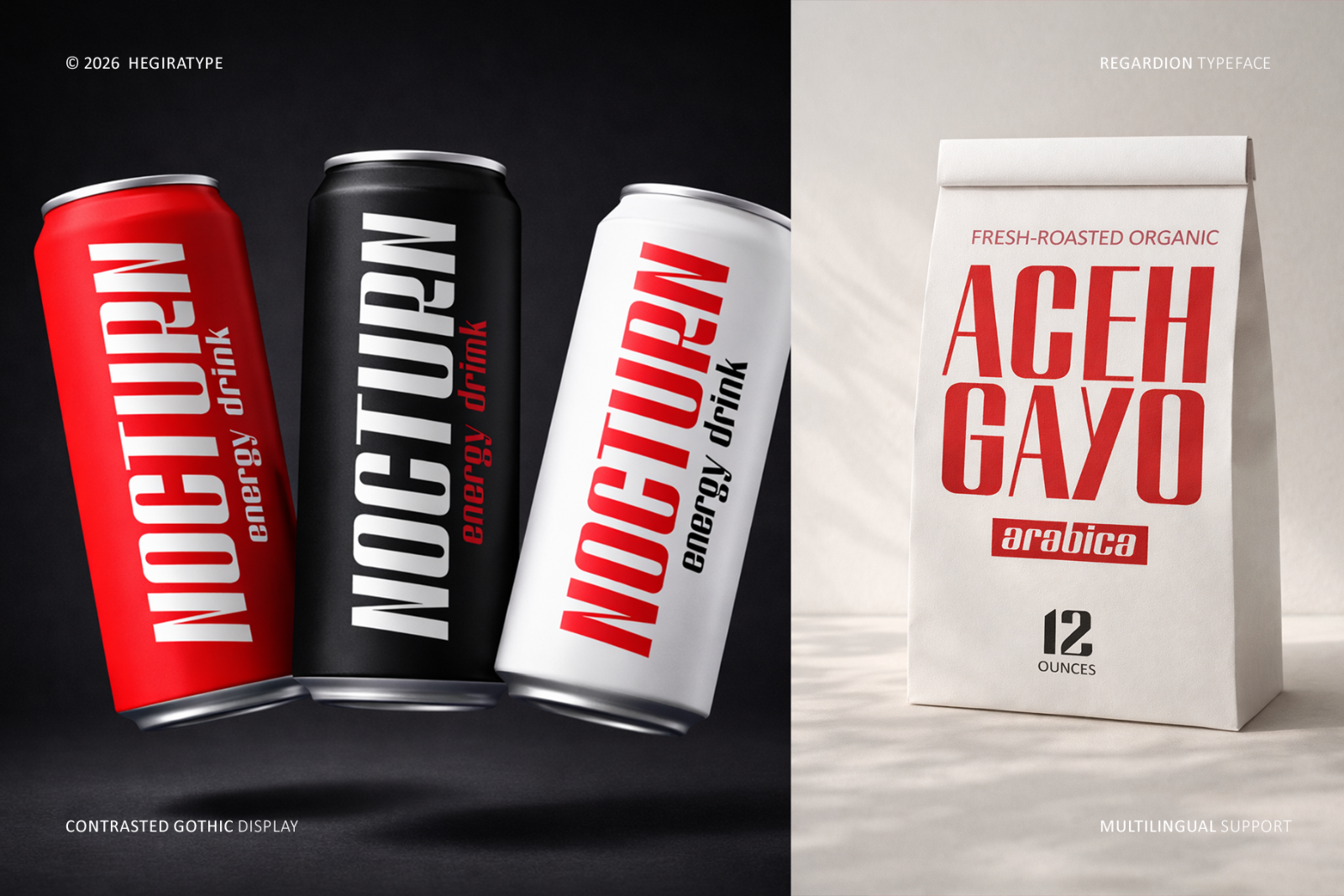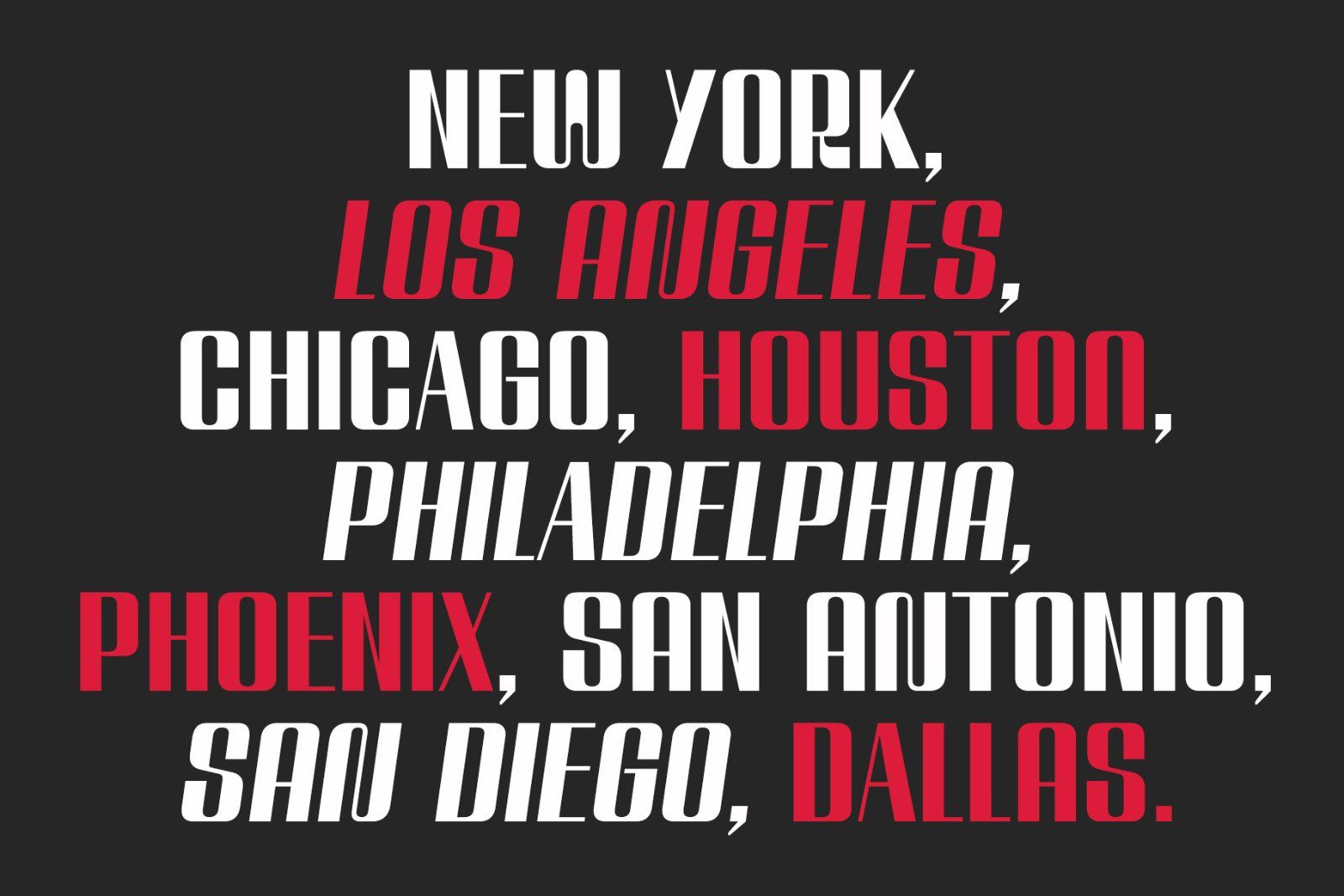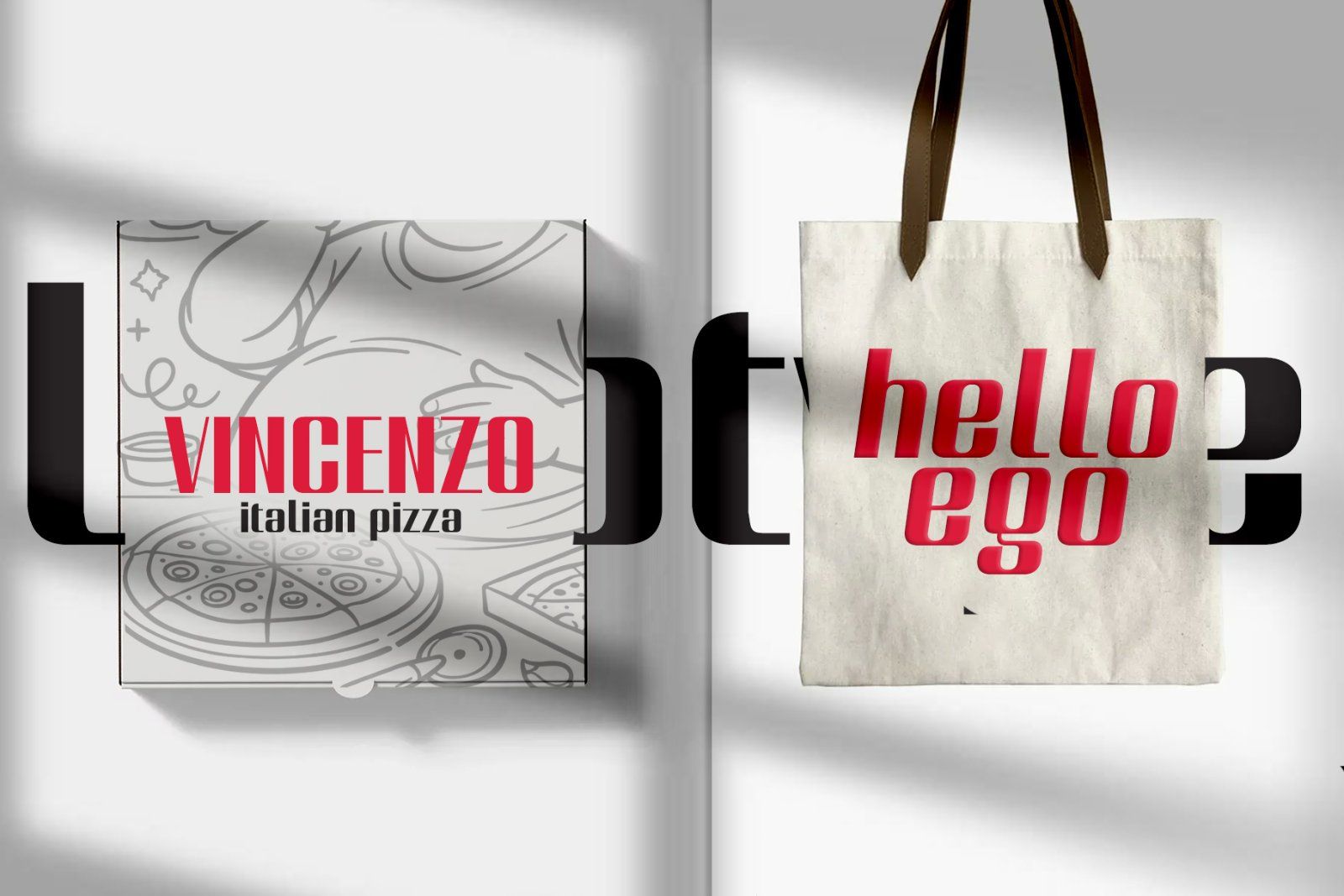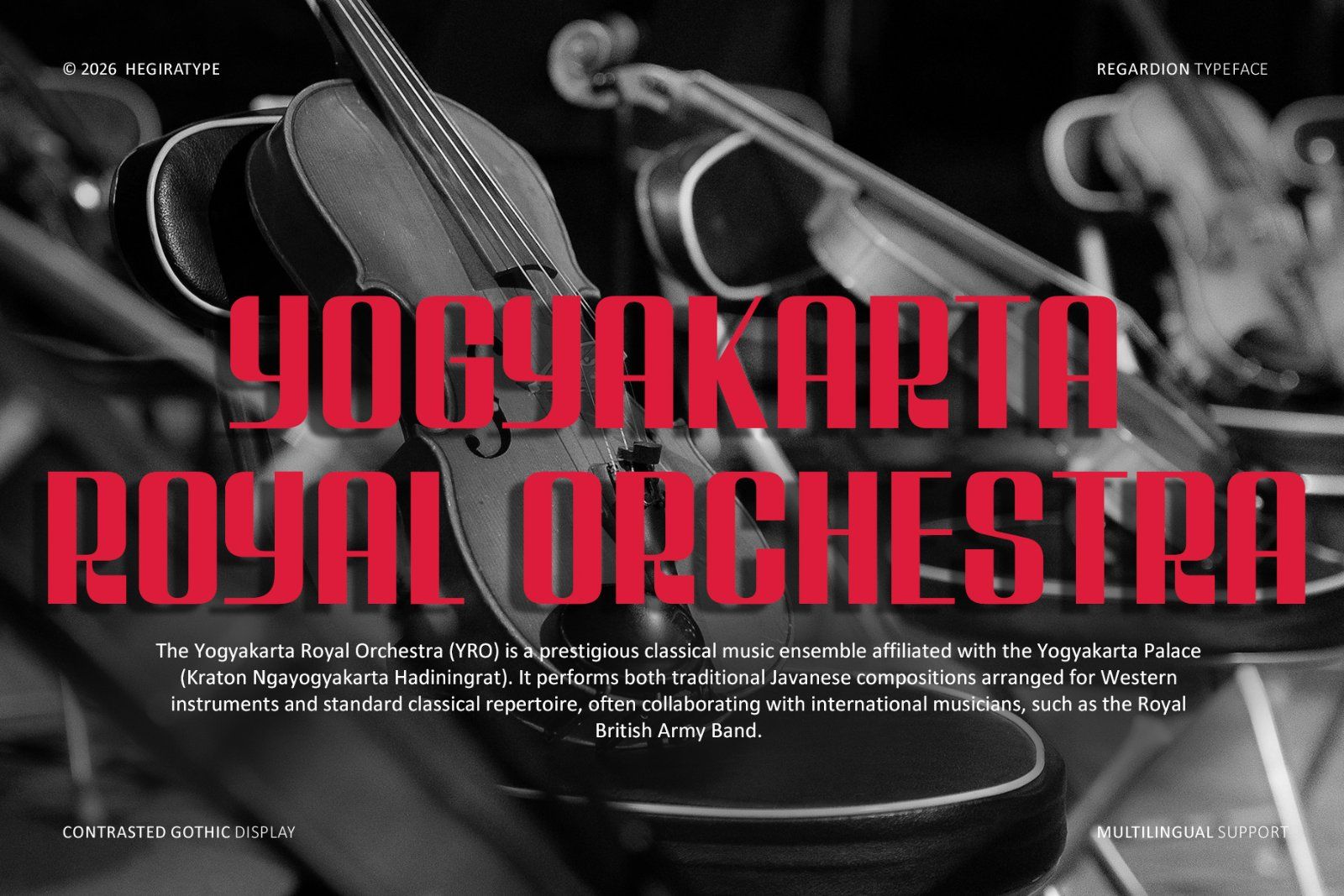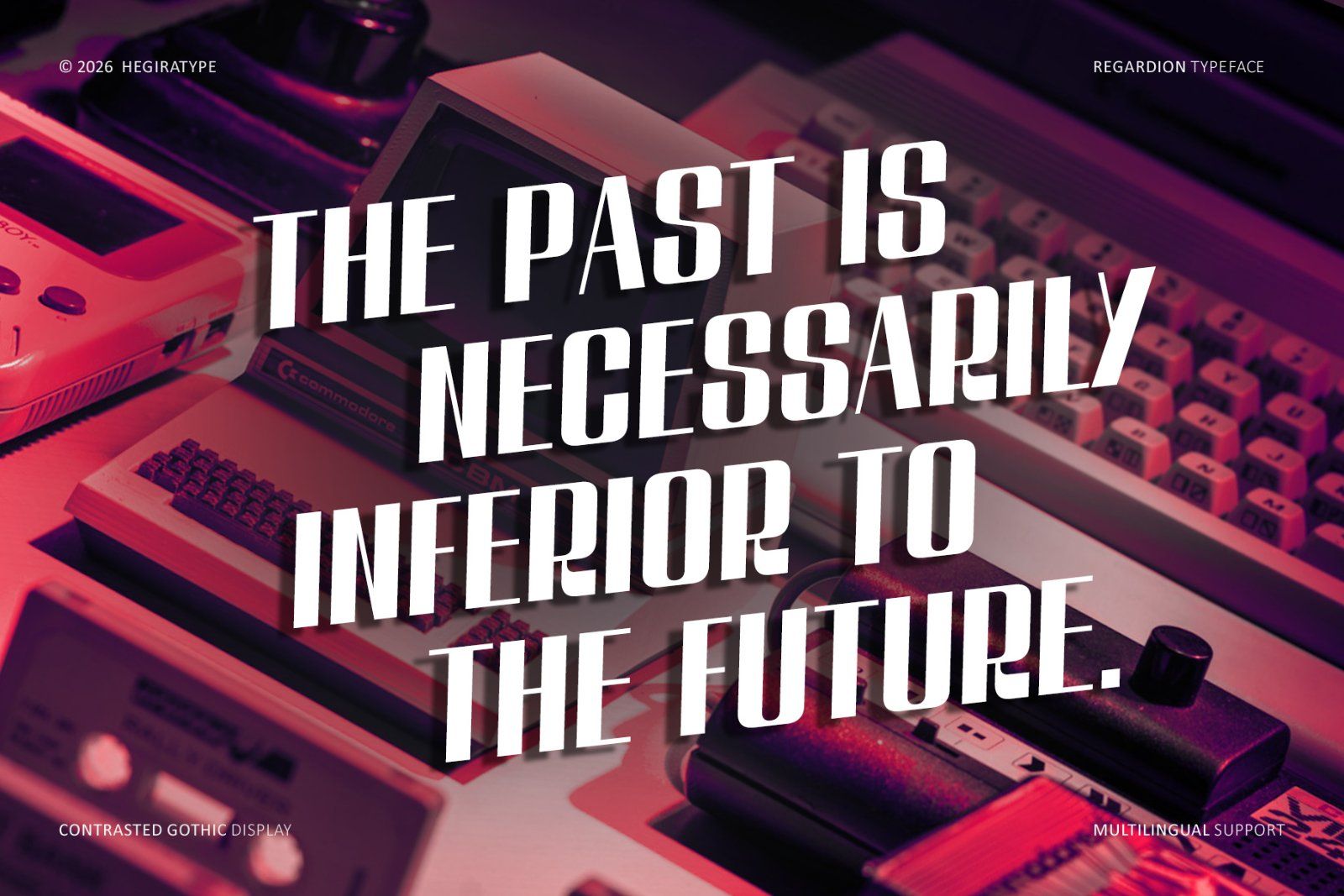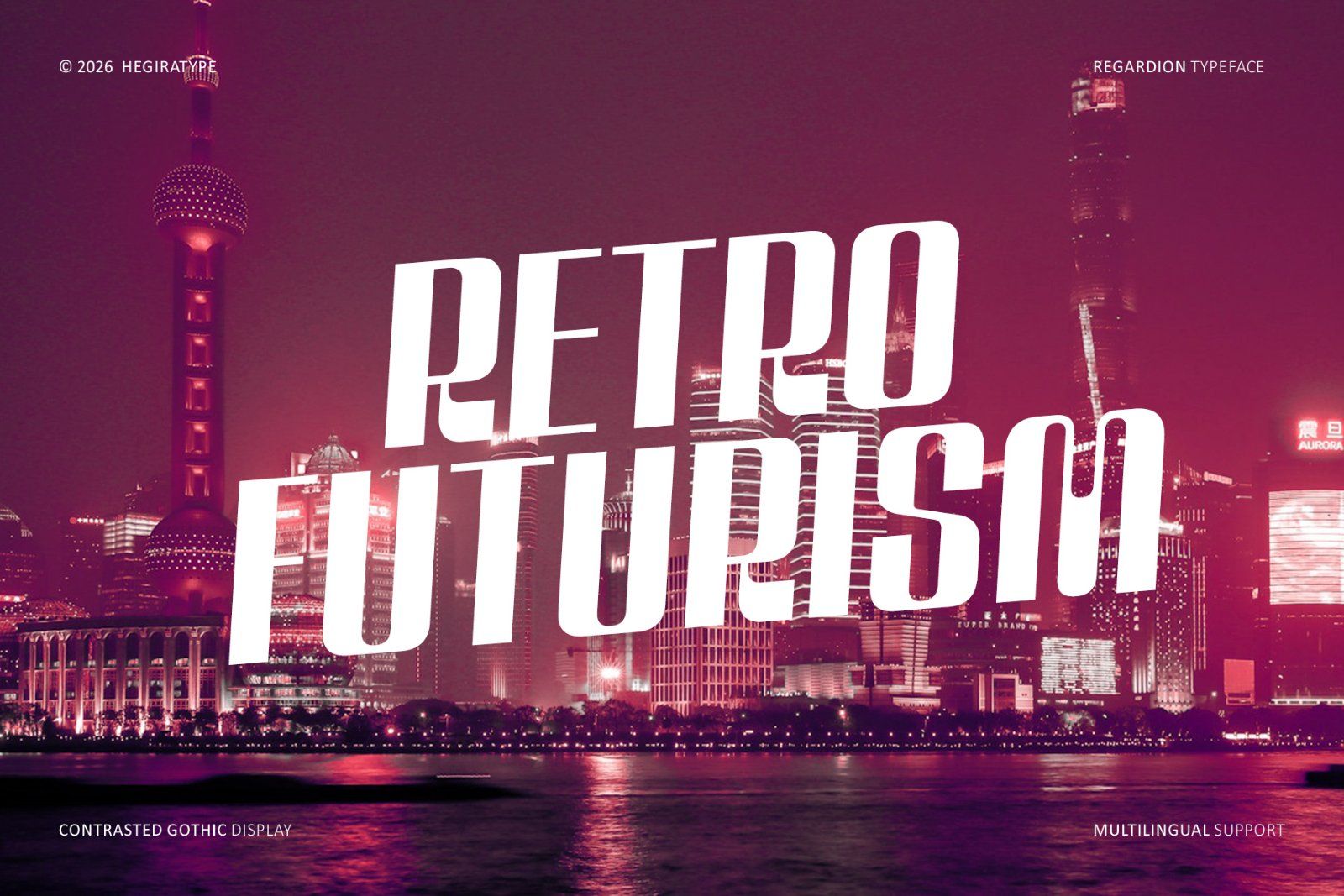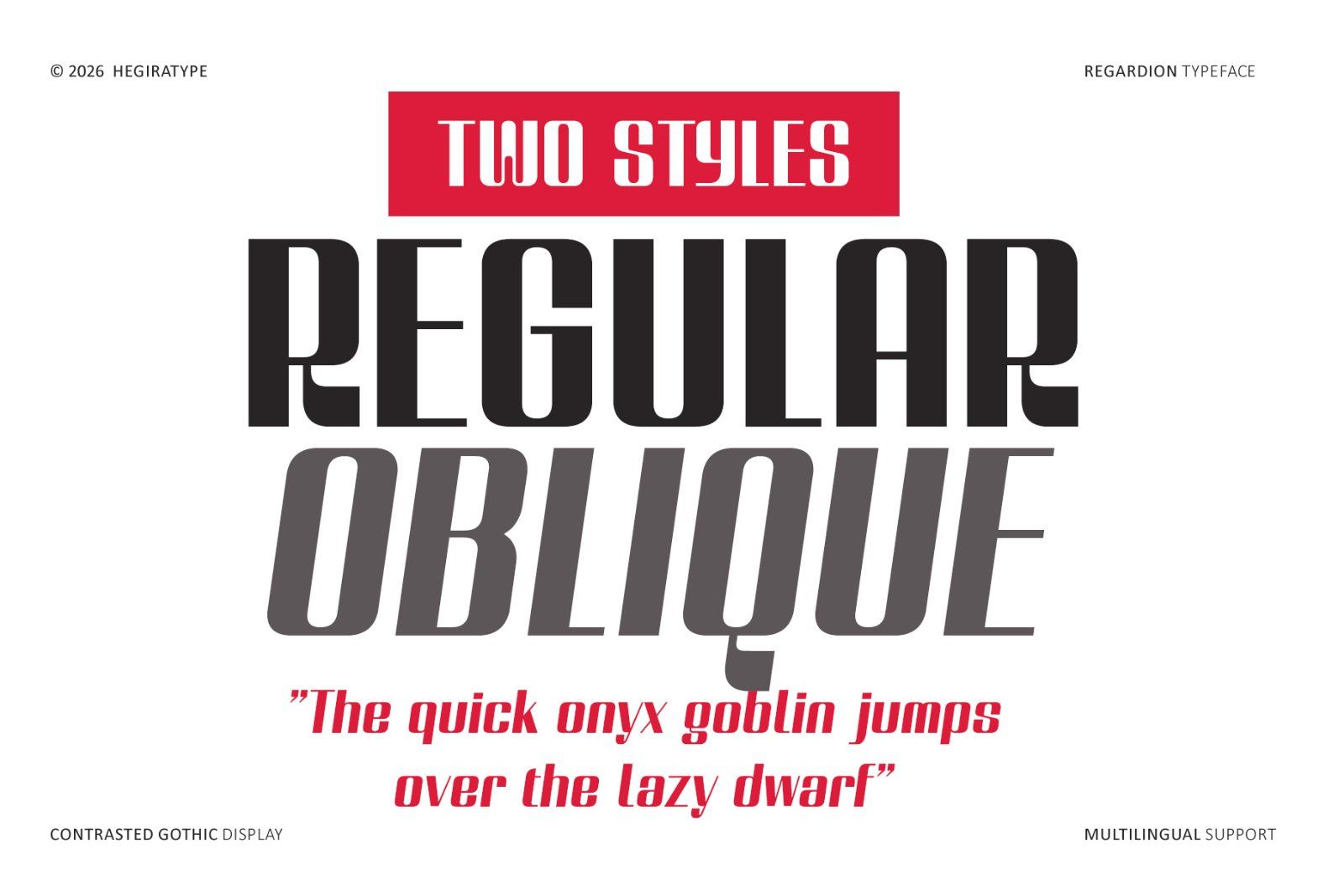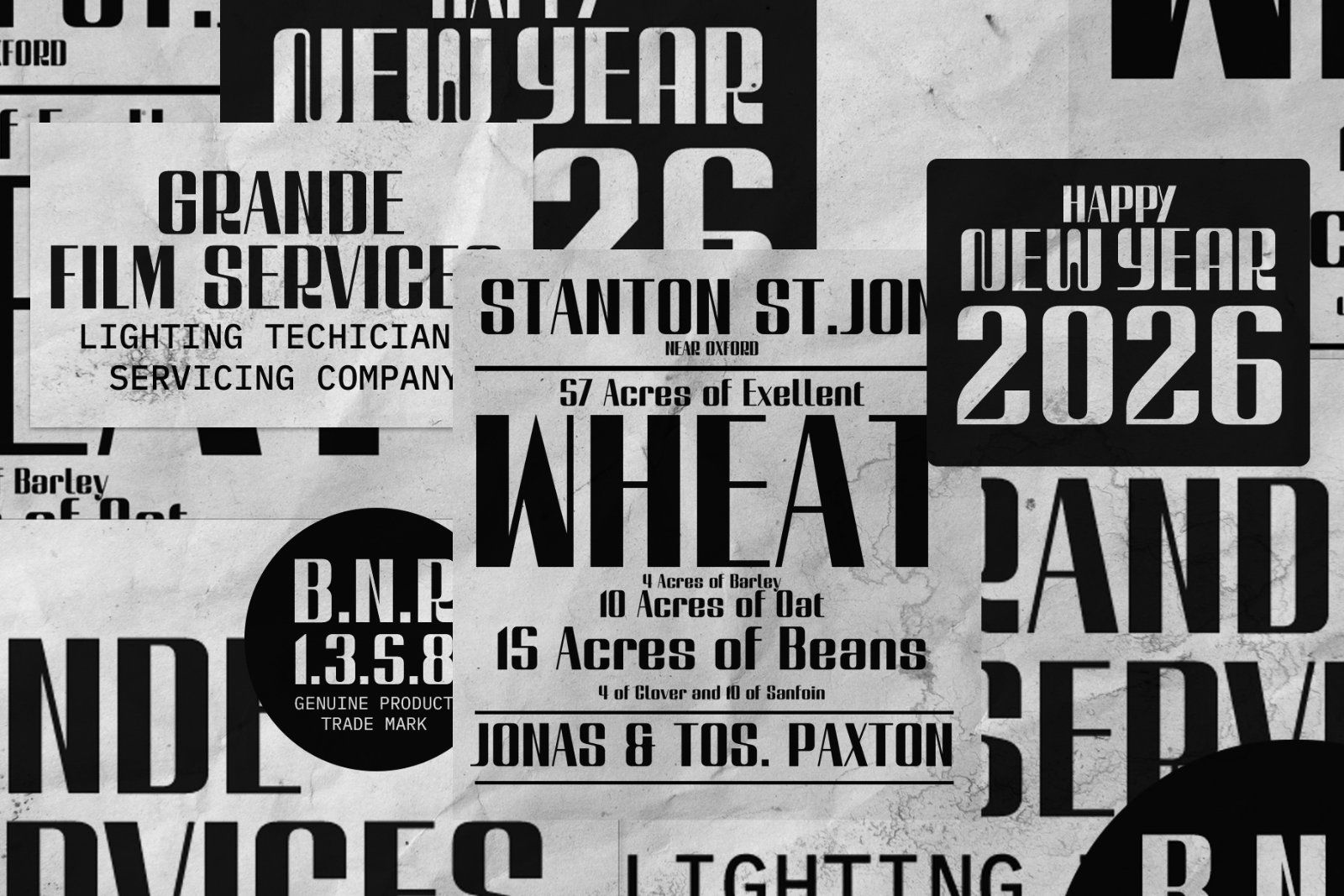
Regardion is a high-contrast Gothic display typeface that merges the bold spirit of retro aesthetics with a sharp sense of futurism. Designed to stand out, Regardion features dramatic strokes, striking contrasts, and distinctive letterforms that evoke both classic Gothic heritage and modern experimental design.
Its expressive personality makes Regardion ideal for headlines, posters, album covers, branding, editorial titles, and visual identities that demand a strong, memorable presence. The font thrives in large sizes, where its details and contrasts can fully shine, delivering a powerful visual impact with a timeless yet forward-looking feel.